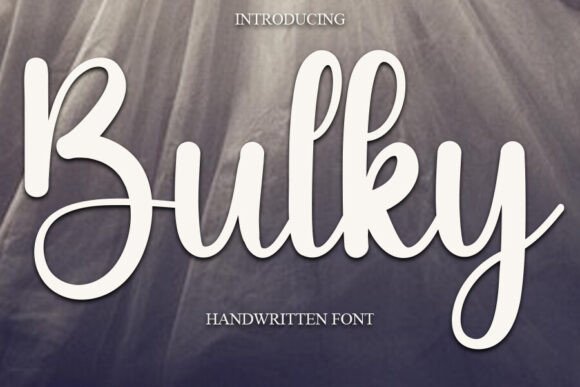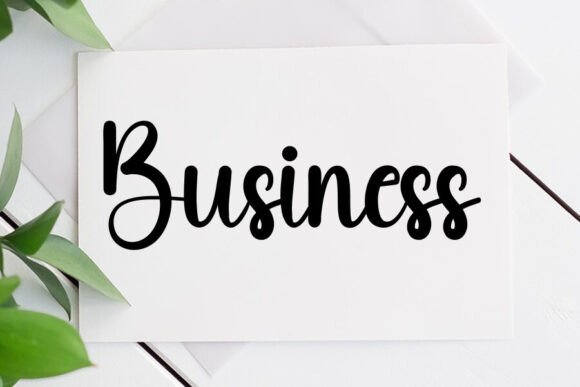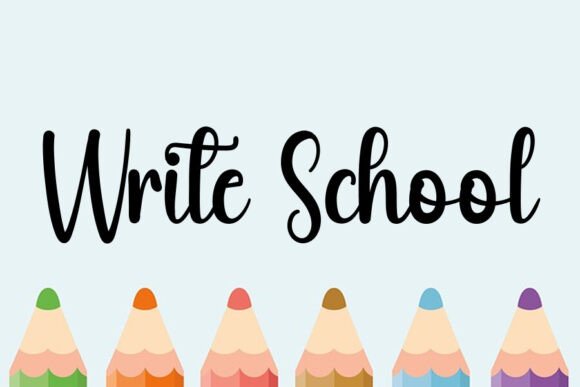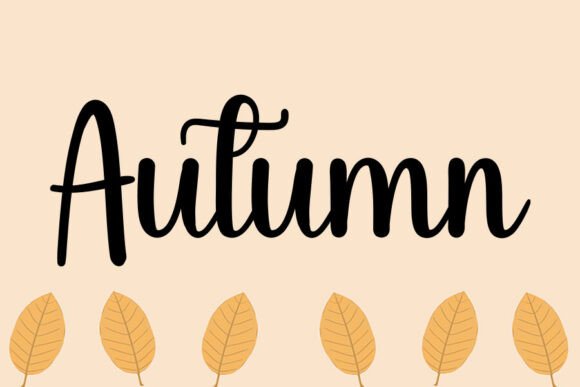
About the Bulky Font
From logos to headlines, the Bulky Font is the perfect choice for making a lasting impression. Bulky is a sweet and cursive handwritten font. This gentle font will look gorgeous on a variety of design ideas. It will add a joyful and romantic touch to each of your projects! Perfectly fit for branding, logo, wedding things, greeting cards, fashion, lookbook, marketing promotion, and any time you want your design to look fancy and elegant but still casual.
Bulky’s playful, yet elegant cursive style shines in headlines, short text blocks on invitations or packaging, and logotypes requiring a touch of hand-drawn charm. It’s less suitable for body copy or UI elements due to its low readability in extended text.
Pairing Bulky with a clean sans-serif like Montserrat or a geometric sans-serif like Futura provides a strong contrast, balancing its organic curves with sharp, modern lines. For a more traditional feel, a classic serif such as Garamond or Didot would create sophisticated visual harmony.
The overall personality is best described as friendly and approachable, with a hint of romantic flair. This makes it ideal for brands focusing on handcrafted goods, weddings, or feminine products. Avoid using it for projects requiring a strong, corporate, or highly modern feel.